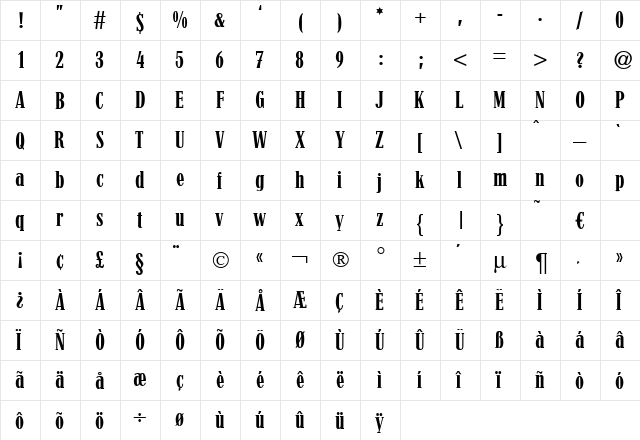
CanadaSmallDB Bold Font Preview
CanadaSmallDB Bold
Design Context for CanadaSmallDB Typeface
CanadaSmallDB takes a measured approach to typography — its balanced proportions and neutral character make it a reliable workhorse for both digital and print work. The heavy weight commands attention and anchors typographic hierarchies.